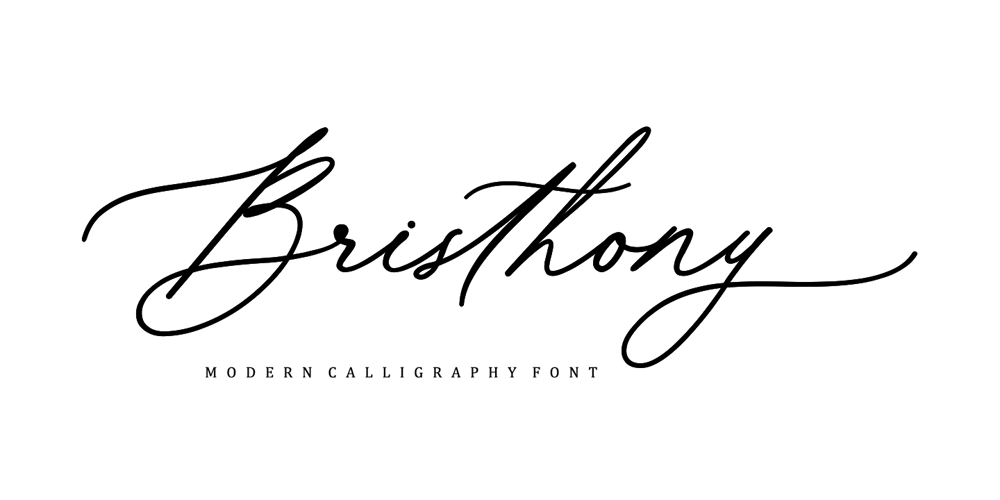
Bristhony Font Family was designed by Muhibbus Sabri and published by Queenop Studio. Bristhony contains 1 styles and family package options. Bristhony – Modern Calligraphy Script FontProudly Present The New “Bristhony // Classy Calligraphy Font”Bristhony is modern classy calligraphy font, this font come with beautiful ligature and lovely alternate. Bristhony has a very beautiful stroke and will be very suitable if applied to wedding projects, invitations, fashion, and much more.Feature and what will you get:Uppercase and lowercaseNumber and punctuationBeautiful ligatureLovely alternatePUA Encoded and multilingual supportI really hope you enjoy it – please do let me know what you think, comments & likes are always hugely welcomed and appreciated. More importantly, please don’t hesitate to drop me a message if you have any issues or queries.Thanks & Congratulations on the Design.